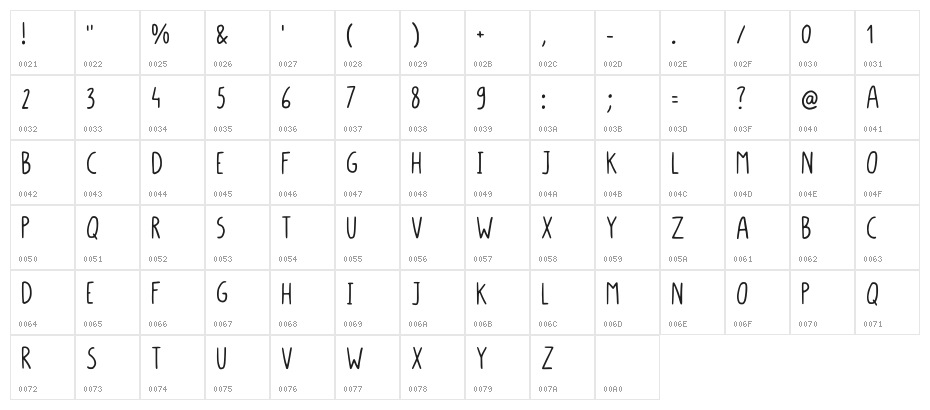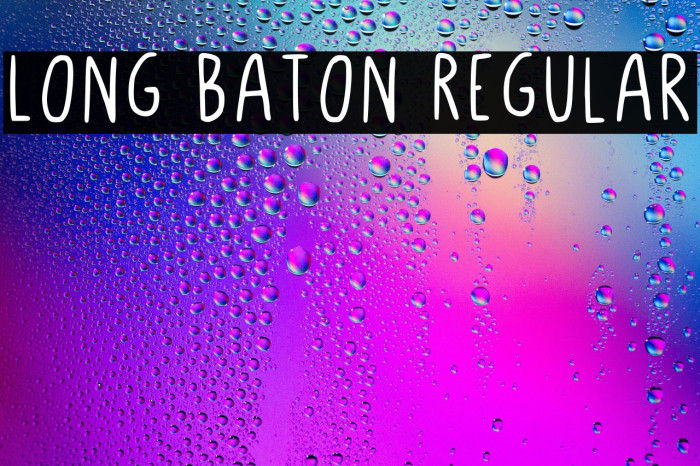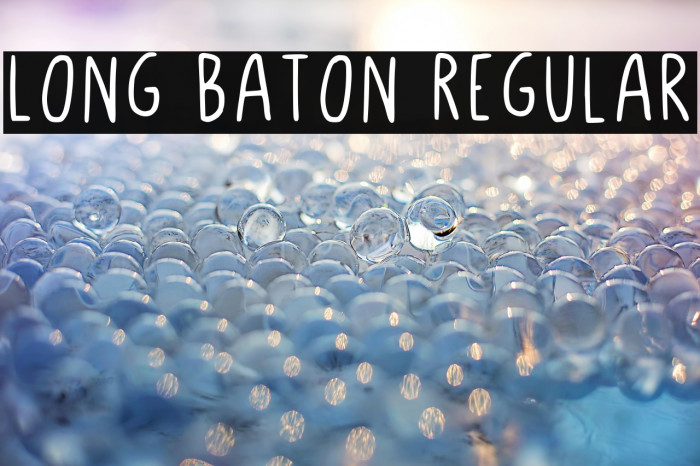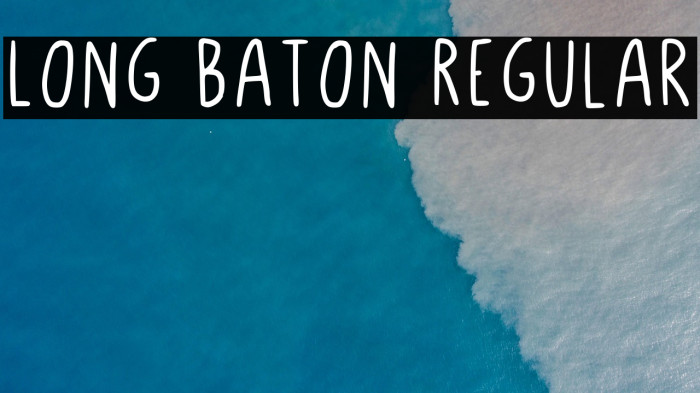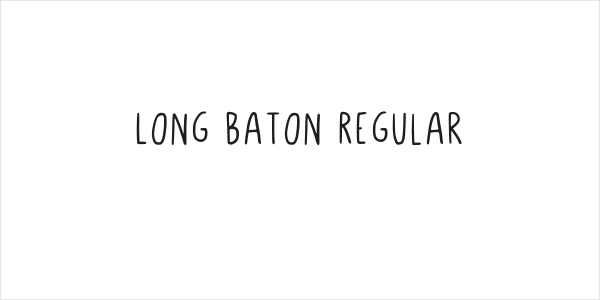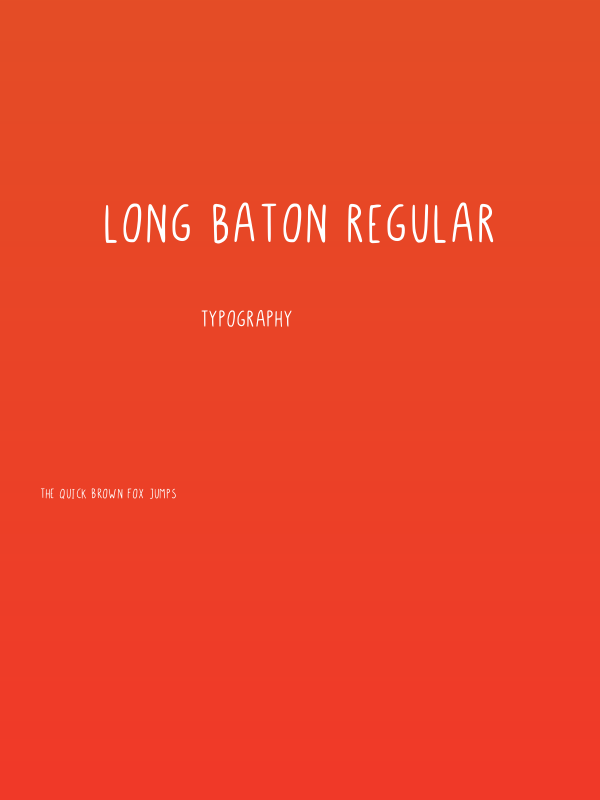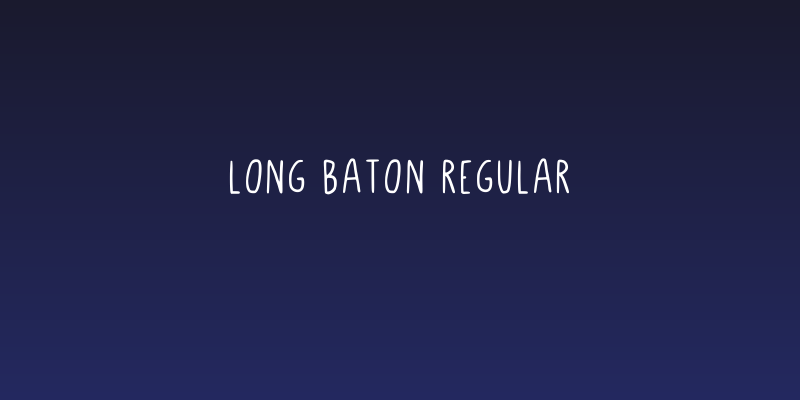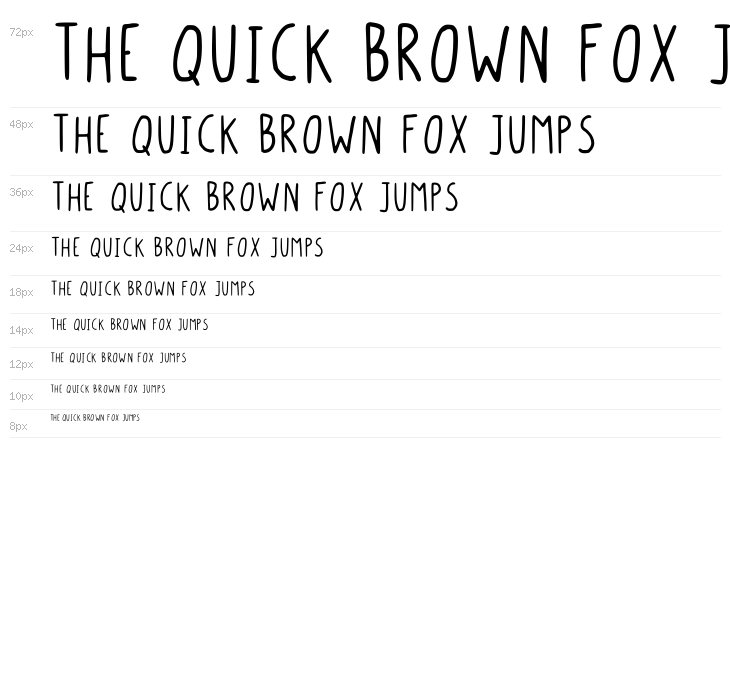
Long Baton Regular Font
Long Baton Regular Description
A playful, handwritten font with a casual and informal style. The letters are slightly elongated, giving a unique character to the text.
| Proposed Projects | Greeting cards, children's books, casual invitations. |